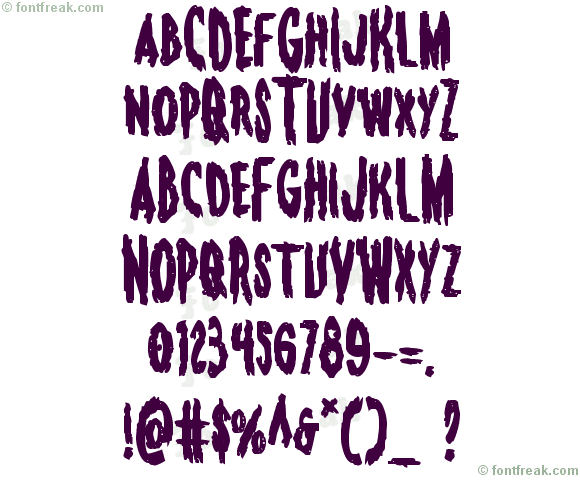
Monsterama Expanded
About Monsterama Expanded
Monsterama Expanded, designed by Daniel Zadorozny, is a captivating display font that falls within the decorative category. With its unique, bold character, this font captures attention with its playful, monstrous style. The font features an uneven stroke weight that gives it a hand-drawn appearance, enhancing its whimsical nature. The letters are slightly condensed, yet expanded in their overall form, creating a dynamic visual rhythm that makes it stand out. The design includes jagged edges and an irregular baseline, adding to its distinctive, adventurous flair.
This font is ideally suited for a variety of creative applications. It works excellently for Halloween-themed events, making it perfect for spooky invitations or party decorations. Additionally, its bold and eye-catching nature lends itself well to movie posters, particularly for horror or fantasy genres, giving a sense of drama and excitement. Restaurant menus with a quirky or thematic approach can also benefit from the playful tone of Monsterama Expanded, making dishes feel more festive. Furthermore, graphic designers can utilize this font in merchandise branding, creating a fun and memorable identity for products aimed at children or those seeking a lighthearted aesthetic.
What makes the Monsterama Expanded font truly stand out is its ability to convey fun and creativity while remaining versatile across various design mediums. Whether used in print or digital formats, the Monsterama Expanded font free download offers a fresh and engaging option that can elevate any project.